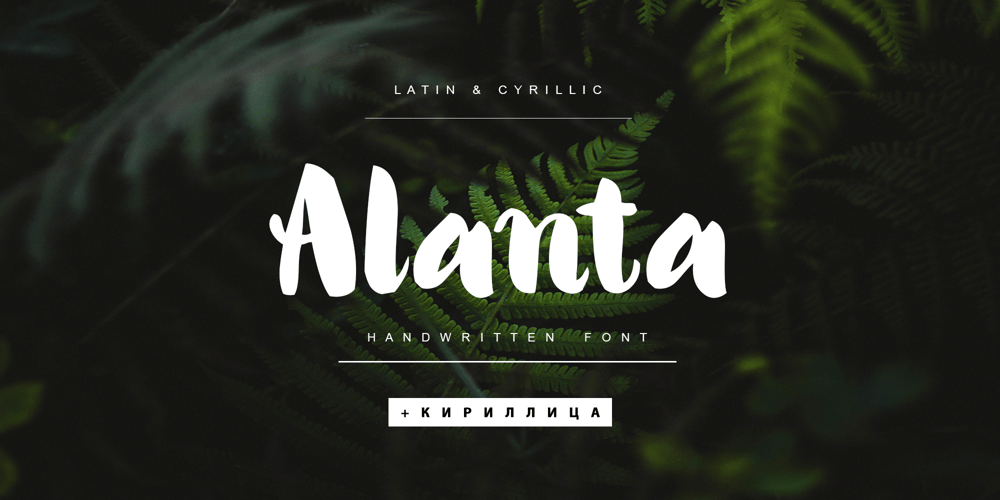
Alanta Cyrillic Font Family was designed by Iryna Dviliuk and published by Ira Dvilyuk. Alanta Cyrillic contains 1 styles and family package options. Alanta is an inky brush script with heavy downstrokes, and skinny loops and upstrokes. It was made with my favorite brush pen and retains a playful handwritten look for all your designs and will be perfect for use in your projects be it logos, signatures, labels, packaging design, blog headlines. Also, it will look great in mugs, cards, gorgeous typographic designs, stationery and much more.Alanta Heavy Handwritten script font includes a full set of gorgeous uppercase and lowercase letters, numerals, a large range of punctuation.Extensive language support is included. Multilingual Support for 32 languages: Afrikaans, Albanian, Basque, Bosnian, Catalan, Danish, Dutch, English, Estonian, Faroese, Filipino, Finnish, French, Galician, Indonesian, Irish, Italian, Malay, Norwegian Bokmål, Portuguese, Slovenian, Spanish, Swahili, Swedish, Turkish, Welsh, ZuluAnd Cyrillic glyphs support for Russian, Belorussian, Bulgarian, Ukrainian, and Kazakh languages.